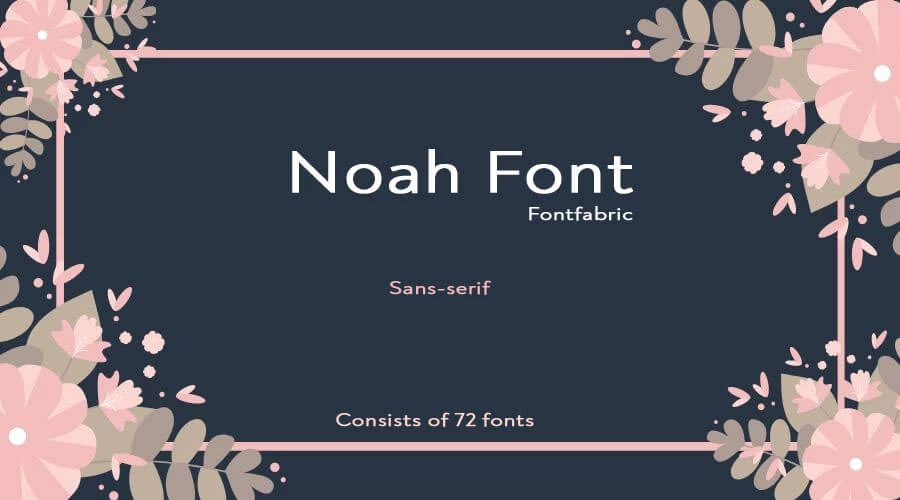
Noah font is a geometric sans serif font designed by Fontfabric font foundry (Designers: Svetoslav Simov, Radomir Tinkov, Stan Partalev). With sharp details and a distinctive arrangement, it further extends the limits of the x-height, providing unparalleled flexibility. With over 650 glyphs in 72 styles (Thin to Black), Noah is a great typeface and useable for every working area. The entire set includes styles from Thin to Black, with matching true italics, and supports Extended Latin and Cyrillic scripts in more than 130 languages.
For its large number of weights, Noah font is compatible with every type of work.
- On Design: This font is compatible with every type of design work. This font is also usable for cards, leaflets, newspapers (online/offline), presentations, webpages, blogs, book covers, social media posts, advertisements, product designs, posters, and many more.
- Logo and Branding: This font is also very suitable for logo design. People like this type of versatile elegant font for logos.
- Headline or Title: For its elegant style and bold weight, it is perfect for headlines and titles. Also, you can use this in the slogan or quotes.
- Display or Text: It works great as a display face but it also works well for small to intermediate size texts.
- Official Work: Being an elegant typeface it is very much perfect for official documents and printing purposes.
Ans: Noah is a geometric sans serif font.
Ans: Montserrat is similar to Noah Font in Google Fonts.